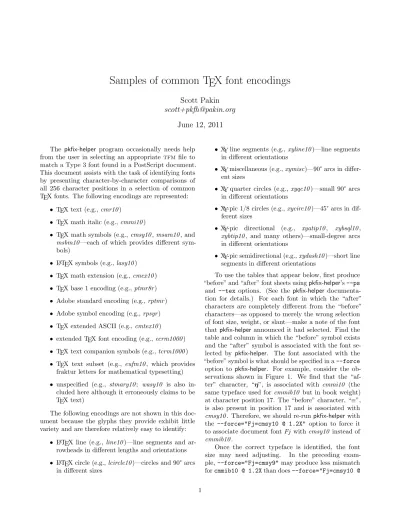
Samples of common TEX font encodings
The pkfix-helper program occasionally needs help from the user in selecting an appropriate tfmfile to match a Type 3 font found in a PostScript document. This document assists with the task of identifying fonts by presenting character-by-character comparisons of all 256 character positions in a selection of common TEX fonts. The following encodings are represented:
• TEX text (e.g.,cmr10)
• TEX math italic (e.g.,cmmi10)
• TEX math symbols (e.g.,cmsy10,msam10, and msbm10—each of which provides different sym-bols)
• LATEX symbols (e.g.,lasy10) • TEX math extension (e.g.,cmex10) • TEX base 1 encoding (e.g.,ptmr8r) • Adobe standard encoding (e.g.,rptmr) • Adobe symbol encoding (e.g.,rpsyr) • TEX extended ASCII (e.g.,cmtex10)
• extended TEX font encoding (e.g.,ecrm1000) • TEX text companion symbols (e.g.,tcrm1000) • TEX text subset (e.g., eufm10, which provides
fraktur letters for mathematical typesetting)
• unspecified (e.g., stmary10; wasy10 is also in-cluded here although it erroneously claims to be TEX text)
The following encodings are not shown in this doc-ument because the glyphs they provide exhibit little variety and are therefore relatively easy to identify:
• LATEX line (e.g., line10)—line segments and ar-rowheads in different lengths and orientations
• LATEX circle (e.g.,lcircle10)—circles and 90°arcs in different sizes
• XY line segments (e.g., xyline10)—line segments in different orientations
• XY miscellaneous (e.g.,xymisc)—90°arcs in differ-ent sizes
• XY quarter circles (e.g., xyqc10)—small 90° arcs in different orientations
• XY-pic 1/8 circles (e.g.,xycirc10)—45°arcs in dif-ferent sizes
• XY-pic directional (e.g., xyatip10, xybsql10, xybtip10, and many others)—small-degree arcs in different orientations
• XY-pic semidirectional (e.g.,xydash10)—short line segments in different orientations
To use the tables that appear below, first produce “before” and “after” font sheets usingpkfix-helper’s--ps and --tex options. (See the pkfix-helper documenta-tion for details.) For each font in which the “after” characters are completely different from the “before” characters—as opposed to merely the wrong selection of font size, weight, or slant—make a note of the font that pkfix-helperannounced it had selected. Find the table and column in which the “before” symbol exists and the “after” symbol is associated with the font se-lected by pkfix-helper. The font associated with the “before” symbol is what should be specified in a--force option to pkfix-helper. For example, consider the ob-servations shown in Figure 1. We find that the “af-ter” character, “η”, is associated with cmmi10 (the same typeface used forcmmib10 but in book weight) at character position 17. The “before” character, “≡”, is also present in position 17 and is associated with cmsy10. Therefore, we should re-runpkfix-helperwith the --force="Fj=cmsy10 @ 1.2X" option to force it to associate document fontFj with cmsy10 instead of cmmib10.
1.2X". Making such a determination requires human involvement. A suggested approach is first to let pkfix-helper identify the size and scale automatically by specifying--force="Fj=cmsy*@*". If doing so
pro-duces a poor match or selects an unlikely scale fac-tor, then the user should manually adjust the font size and/or scale factor.
pkfix-helper: Processing Fj ... done (cmmib10 @ 1.2X, mismatch=0.00073)
ηFigure 1: Sample observations ofpkfix-helperoutput and output files